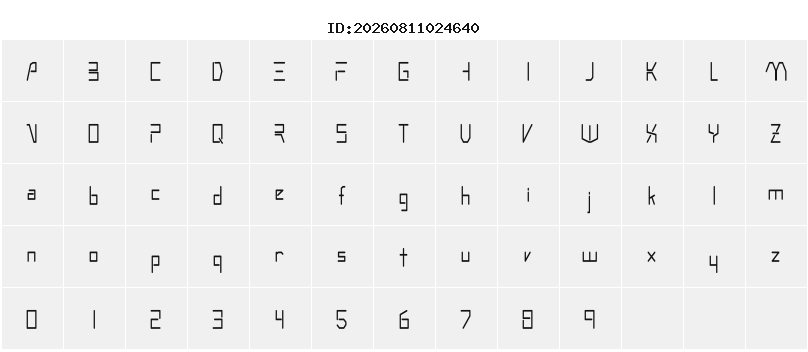
• Font Name: Rsandromed Cn
• Full Font Name: Rsandromed Cn
About Rsandromed Cn.ttf
Rsandromed Cn.ttf is a modern, elegant sans-serif font designed for ultimate readability and visual harmony. Perfect for branding, headlines, web design, and print materials.